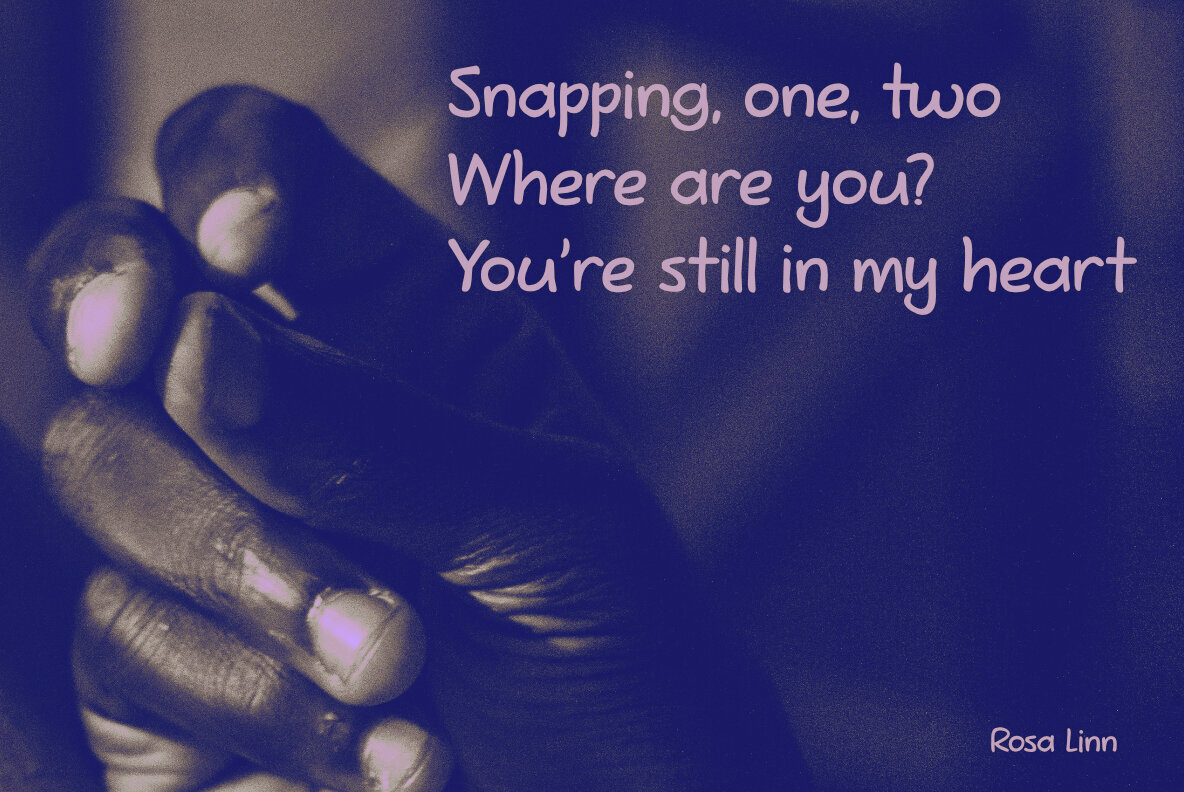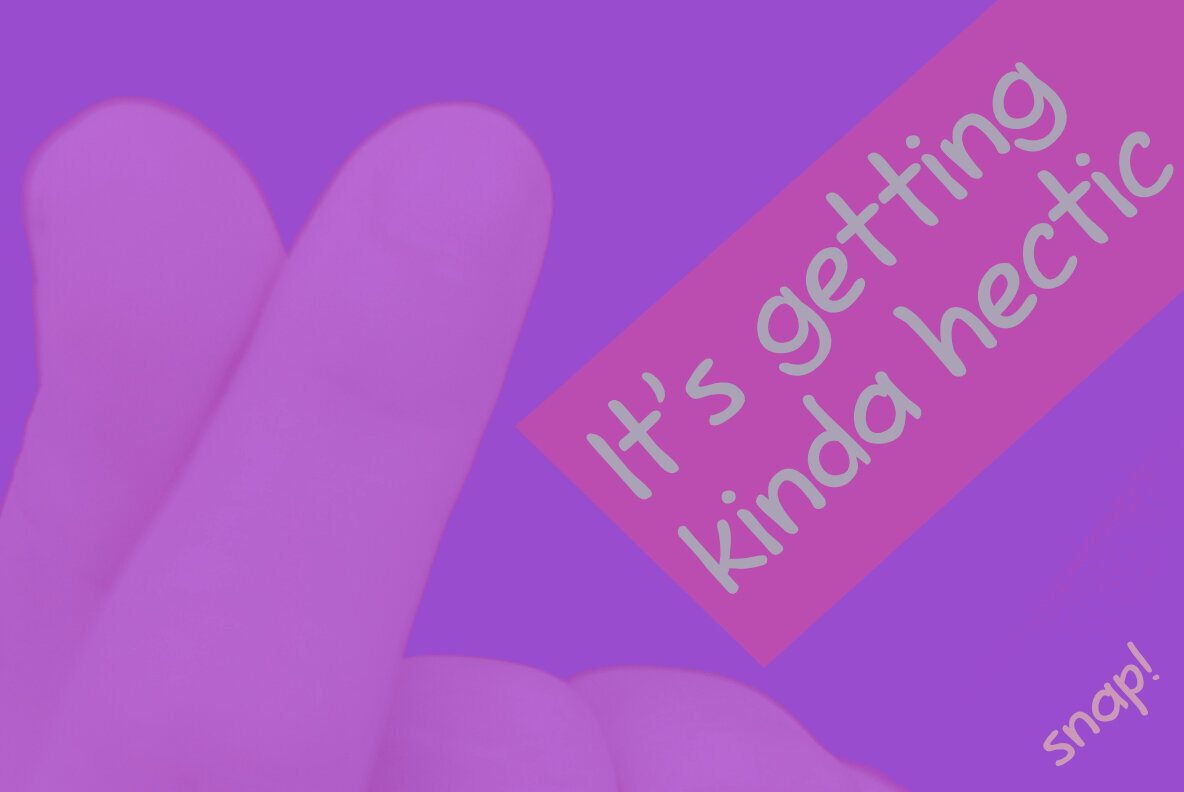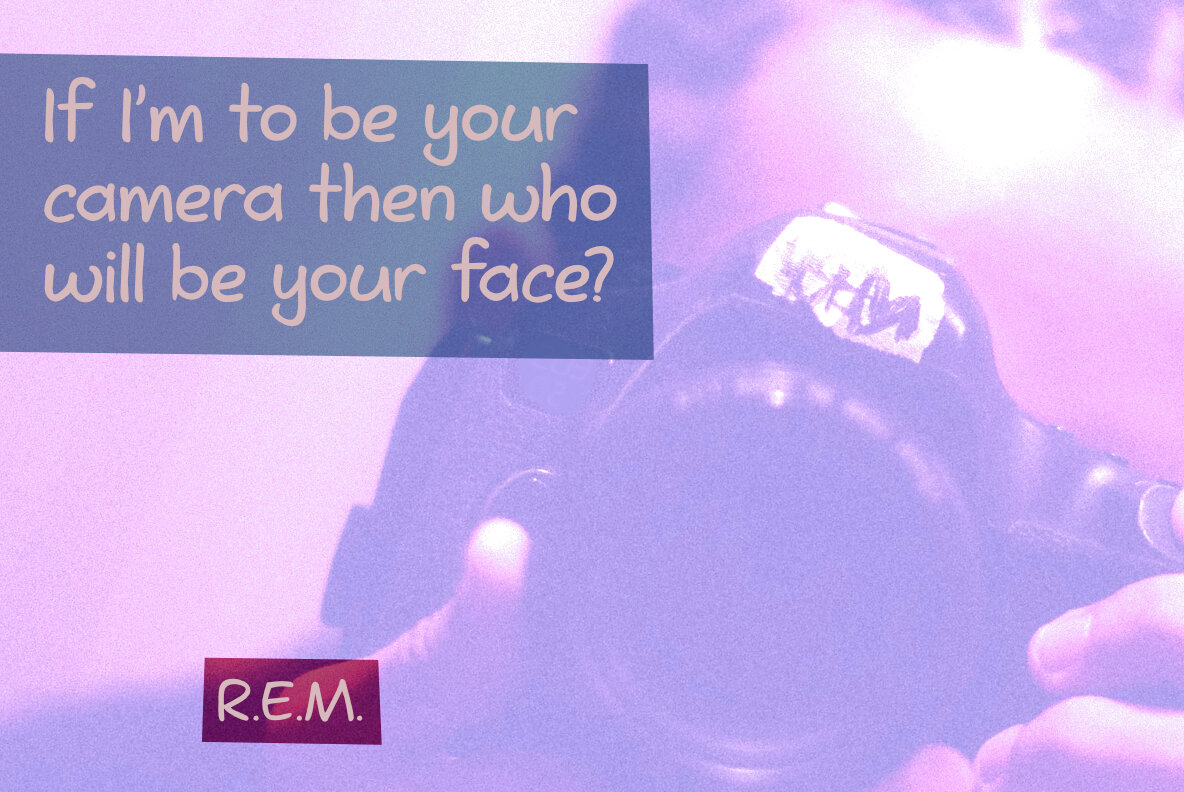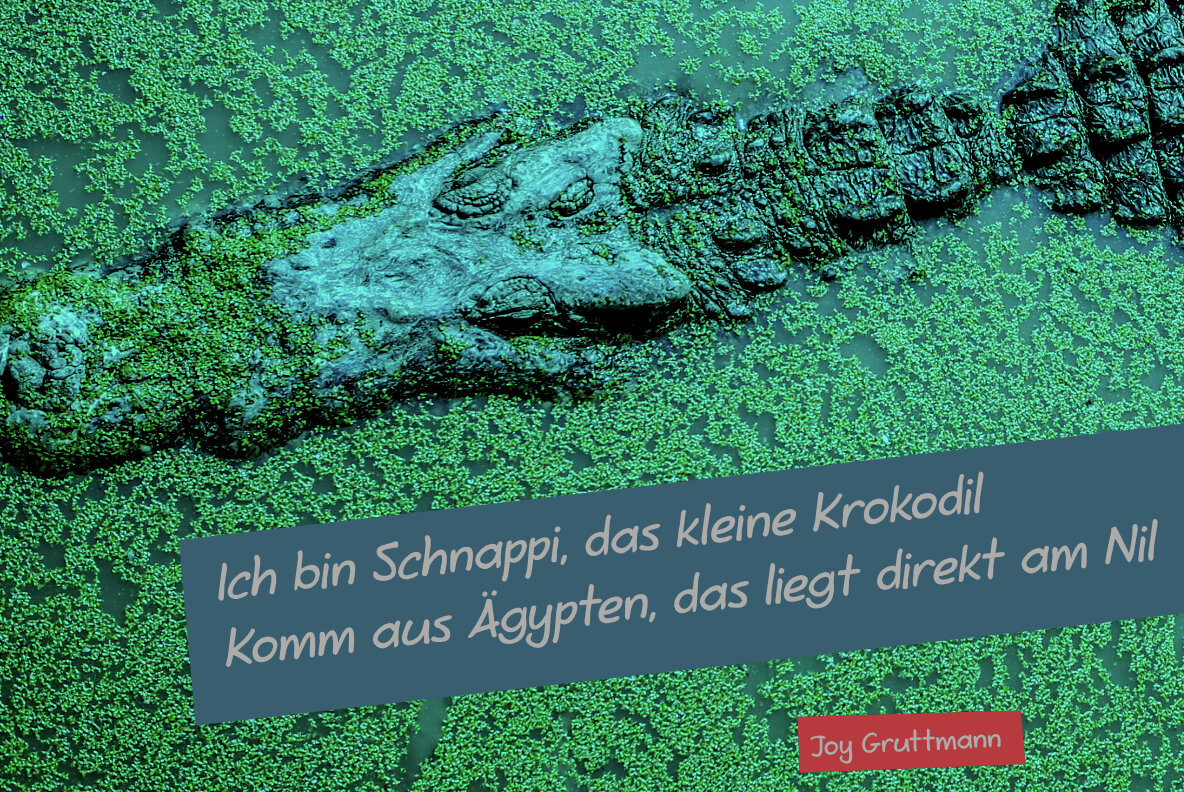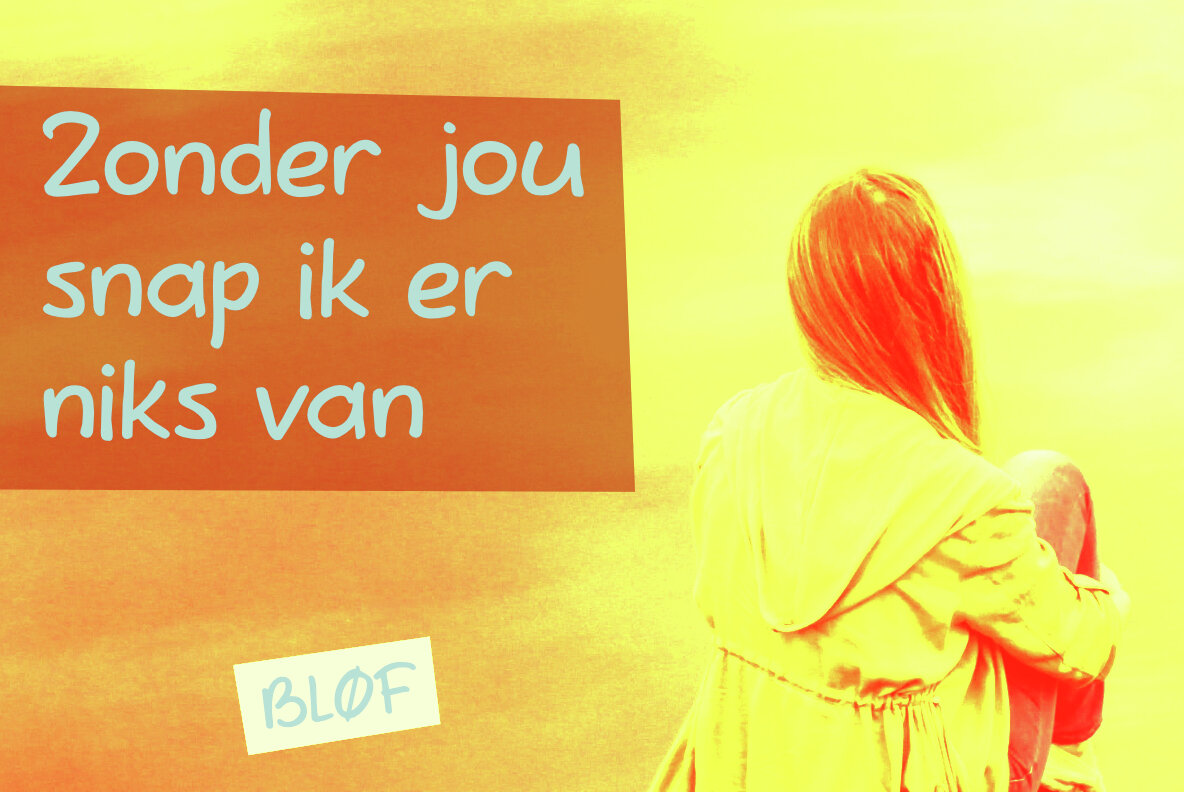
Snappy Fingers Font
Snappy Fingers captures the essence of whimsy with its delightful handwritten style. Originally based on the classic Joe Schmoe font, it has been revitalized with careful attention to detail, complete with a much-needed lowercase and enhanced language support.Snappy Fingers: A Playful Handwritten Revival
Unique Features